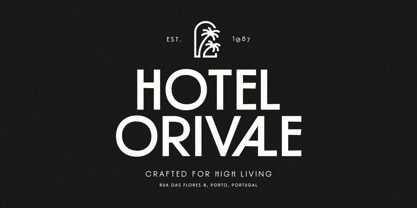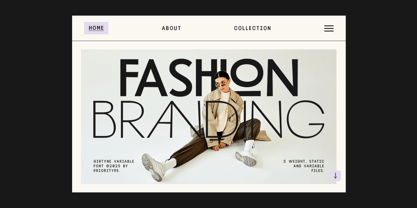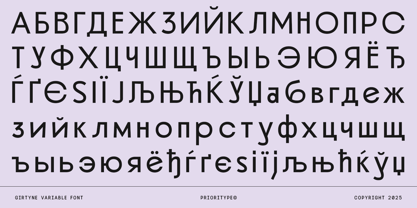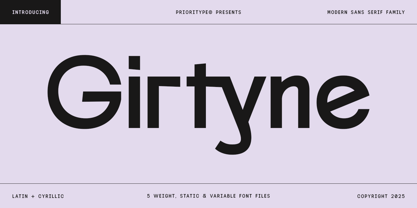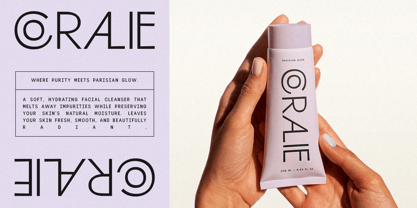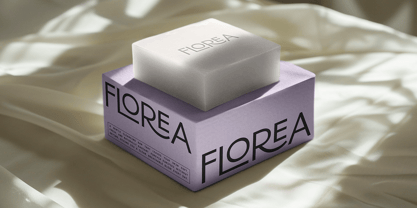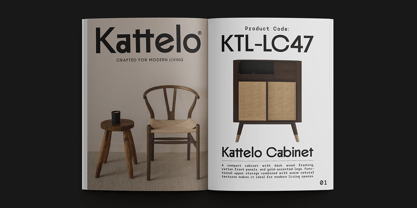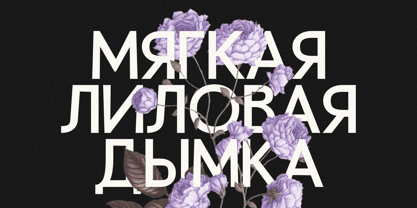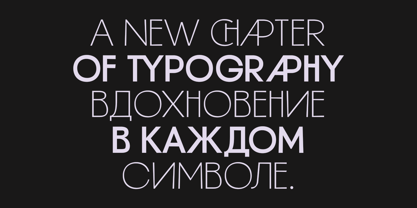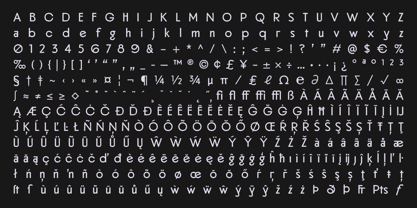
Girtyne
by Prioritype
Girtyne is a refined modern classic sans serif designed for clarity, elegance, and versatility. It balances clean geometry with timeless humanist touches, delivering a smooth and confident typographic voice suitable for branding, editorial layouts, UI design, packaging, and display use. With five carefully crafted weights and a fully adjustable Variable Font, Girtyne gives designers complete control over tone and expression, from delicate extra light styles to semi bold and assertive forms. Its extended character set includes full Cyrillic support, bringing modern sophistication while maintaining the warmth and familiarity of classic sans serif design. This makes Girtyne a reliable choice for creators who value both style and functionality. Thank you for choosing Prioritype Co.